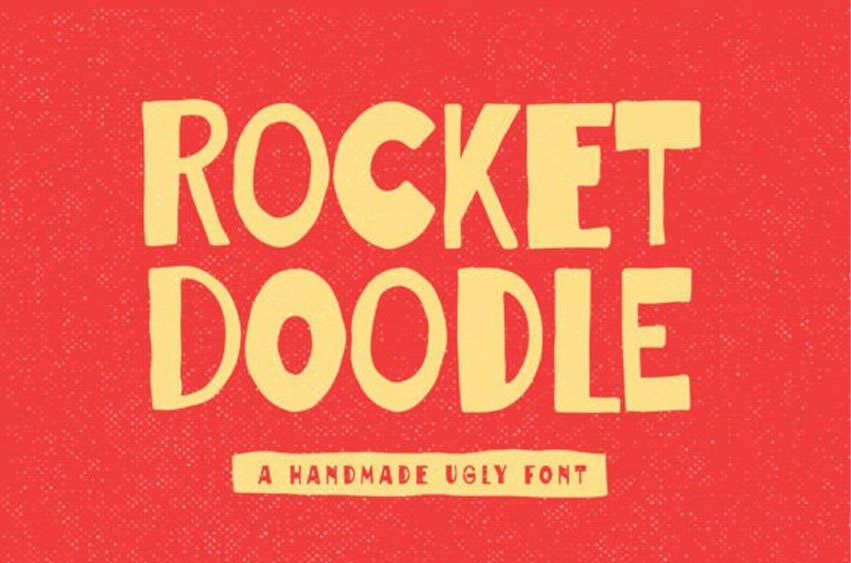
Rocket Doodle Font is a bold, handmade display font with a quirky, intentionally imperfect style that adds personality to any design. With chunky strokes, uneven lines, and a playful “ugly-cute” charm, it captures the look of spontaneous doodles and hand-cut lettering. Ideal for kids’ projects, posters, branding, and illustrations.
Rocket Doodle brings a raw, expressive energy that makes your message stand out with unapologetic character.